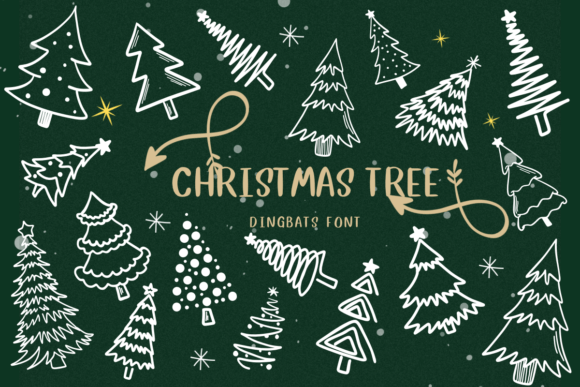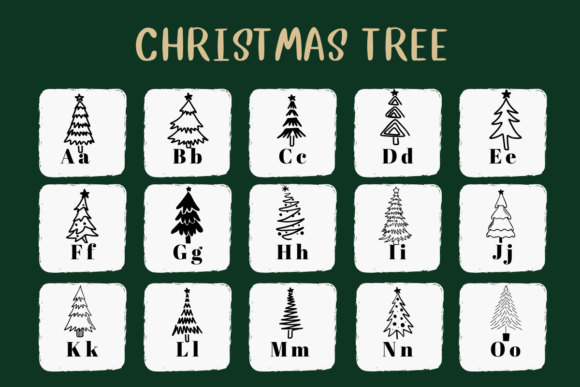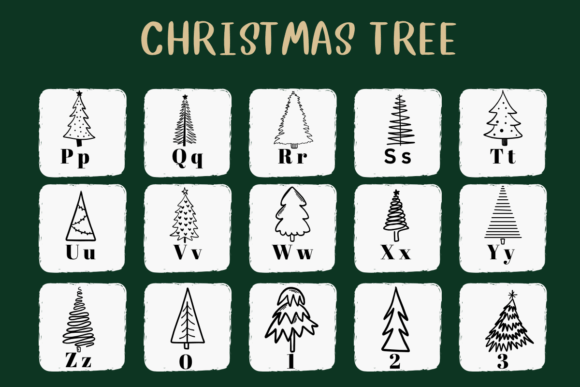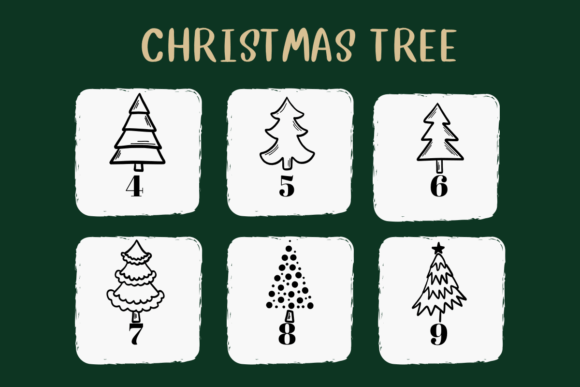
Christmas Tree Font
About the Christmas Tree Font
Get ready to be inspired by Christmas Tree Font, a fresh and dynamic typeface for modern creators. Christmas Tree is a fun dingbat font with a festive theme. This font can enhance your creative projects such as wedding invitations, DIY, crafts, decorations, logos, and many other creative ideas.
Christmas Tree Font Usage Examples
Christmas Tree Font Example